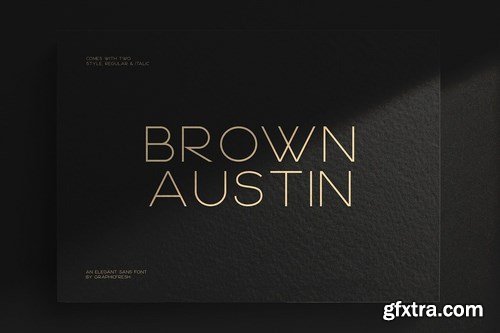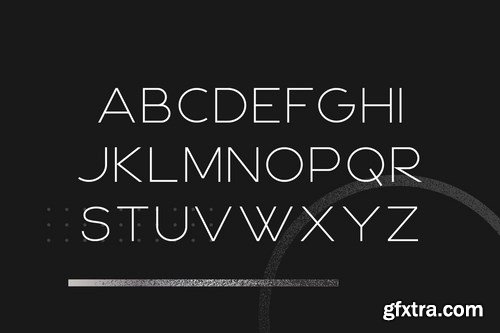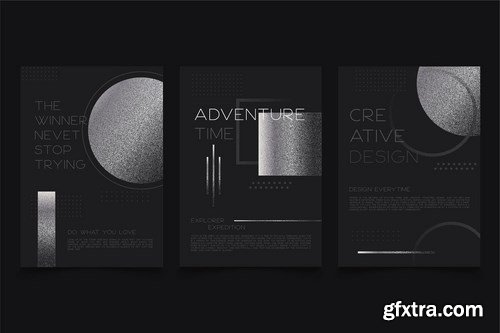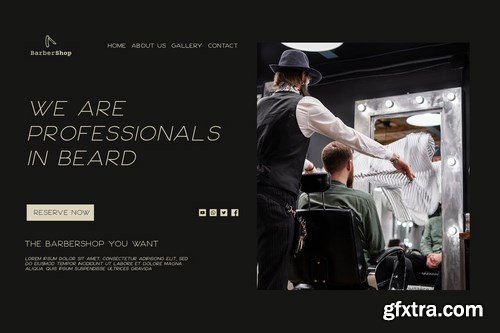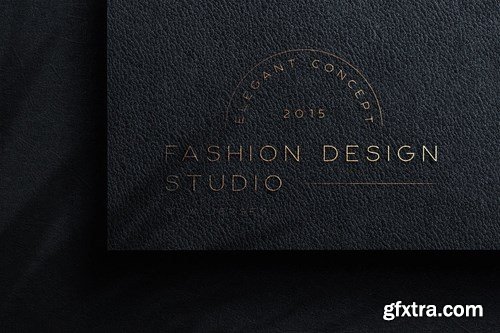
Brown Austin - Modern Sans Serif
Brown Austin - Modern Sans Serif and minimalist character! it's perfect for logos, name card, magazine layouts, invitations, headers, or even large-scale artwork. What you get dear! You will get: Brown Austin, Regular and Italic version, sans serif font (ALL CAPS), numerals and more of symbols. Multilingual support for various languages Help File Support Webfont